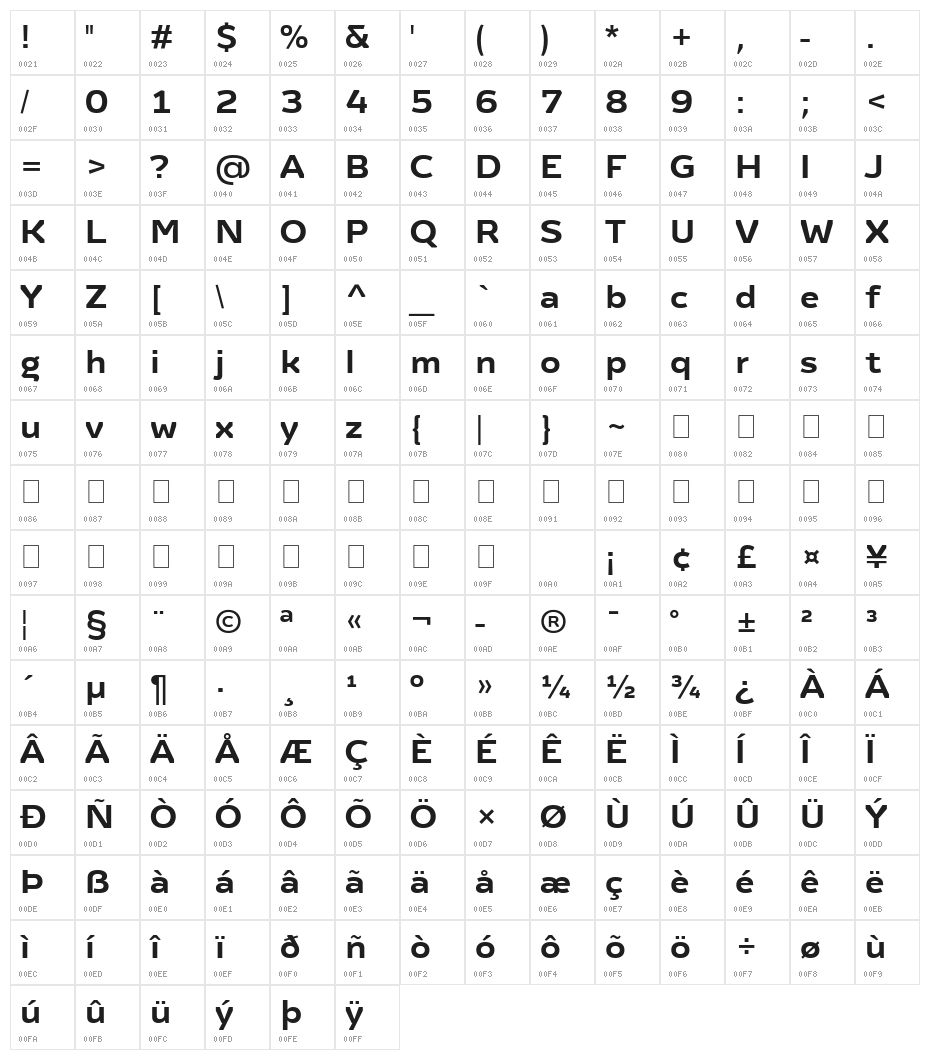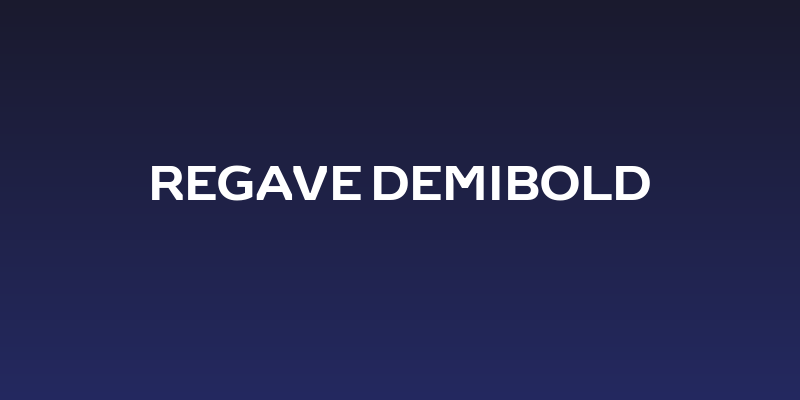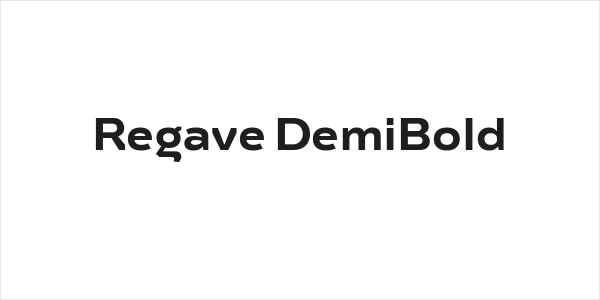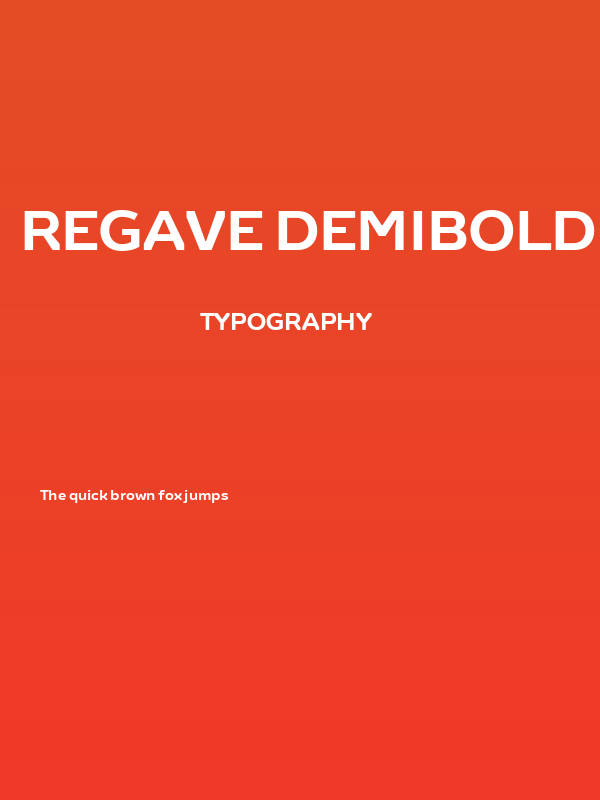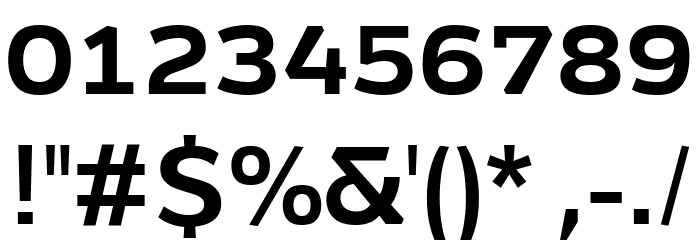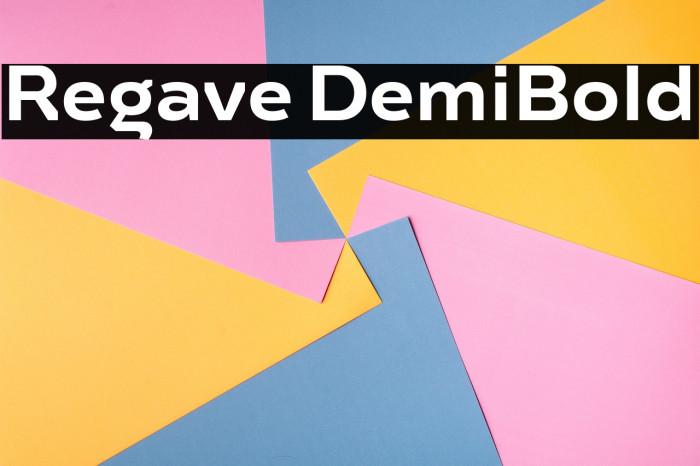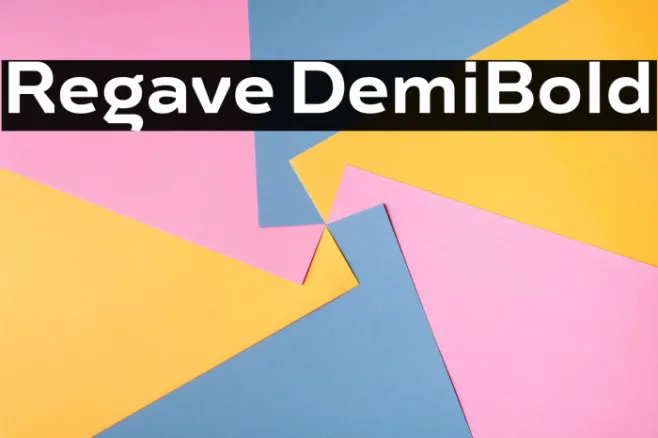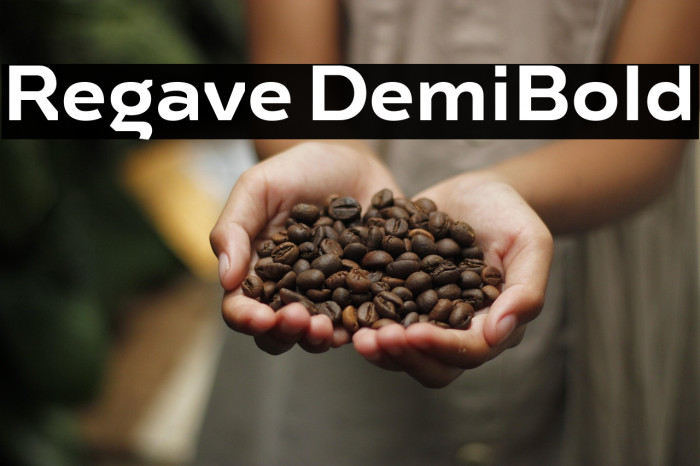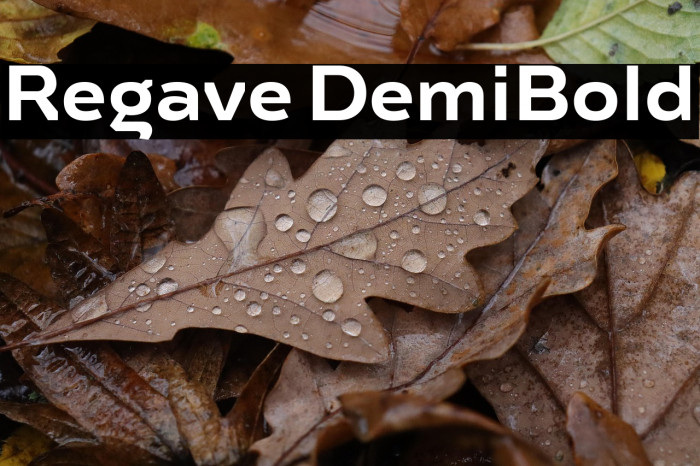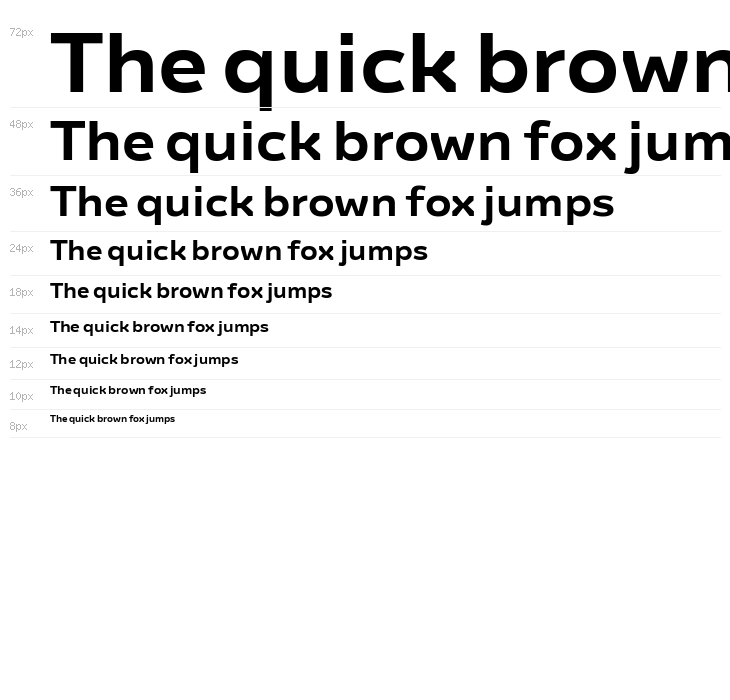
Regave DemiBold Font
Regave DemiBold Description
This font features a clean and modern sans-serif design with a strong presence. The characters are bold and have a uniform stroke width, providing a sense of stability and clarity. The uppercase letters are slightly taller than the lowercase, which are rounded and friendly in appearance. The numerals are consistent with the letterforms, maintaining the same weight and style. Special characters are well-integrated, ensuring versatility in various contexts. The overall design is straightforward, making it suitable for a wide range of applications where readability and impact are essential.
| Use Case | Headlines, Logos, Digital Interfaces |
| Proposed Projects | Ideal for branding, advertising, headlines, and digital interfaces where clarity and impact are crucial. |